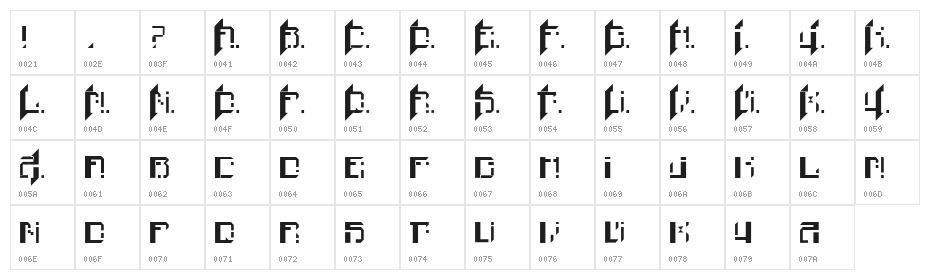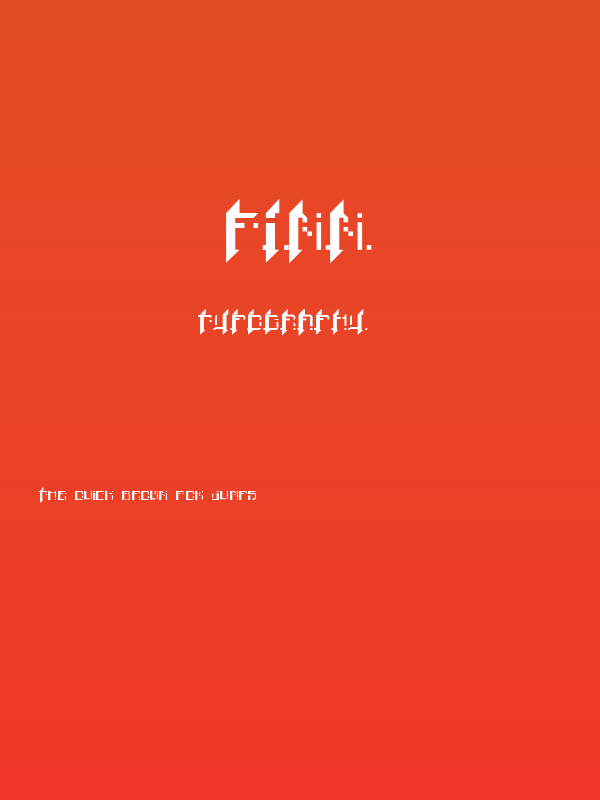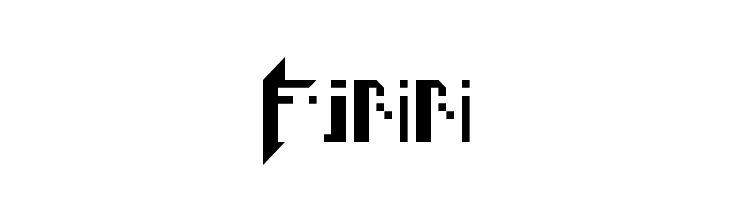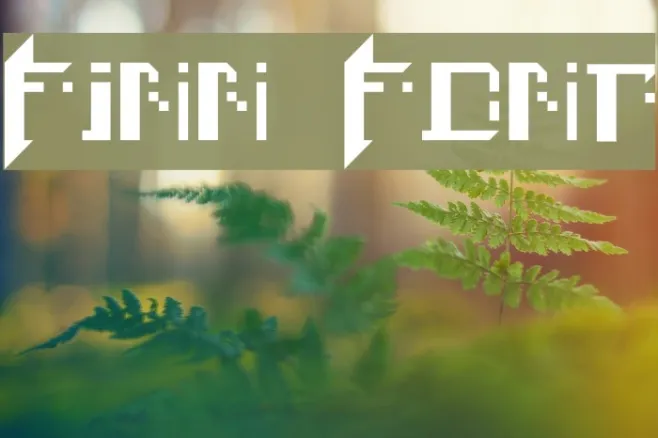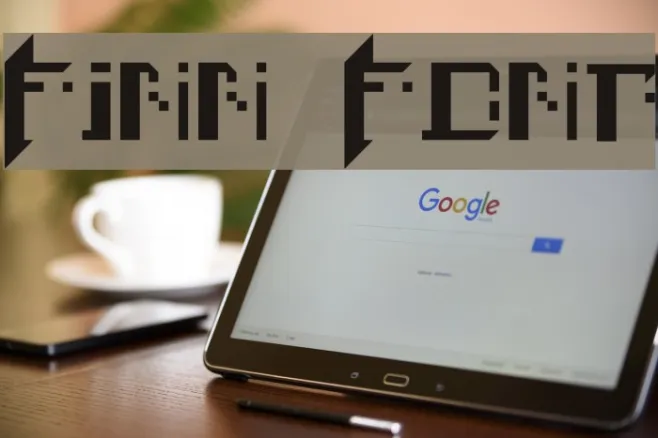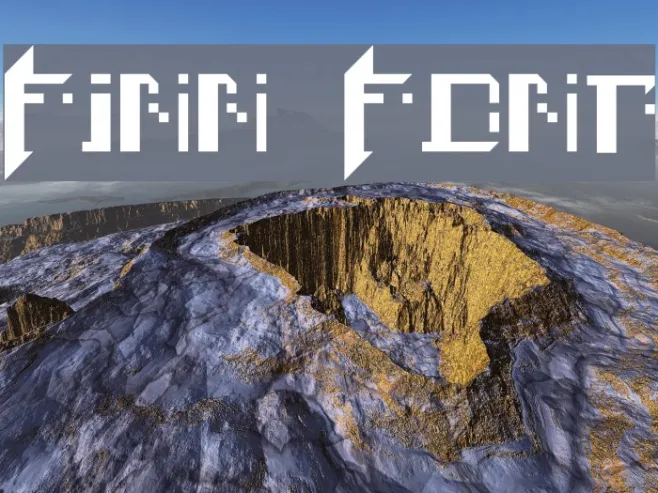
Finn Font
Finn Description
This font features a bold, geometric design with sharp angles and a futuristic aesthetic. The characters are constructed with a combination of solid and negative spaces, creating a digital, almost pixelated appearance. The uppercase letters are particularly striking, with a uniform height and a consistent use of angular cuts and lines. The lowercase letters maintain the same geometric style, ensuring cohesion across the typeface. The numerals and special characters are designed to match the bold, modern look of the alphabet, making this font suitable for digital and tech-themed projects.
| Proposed Projects | Ideal for tech branding, digital interfaces, video game design, and futuristic posters. |